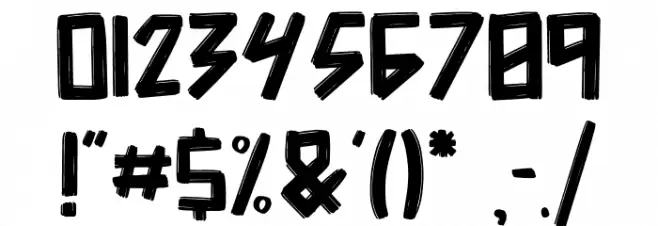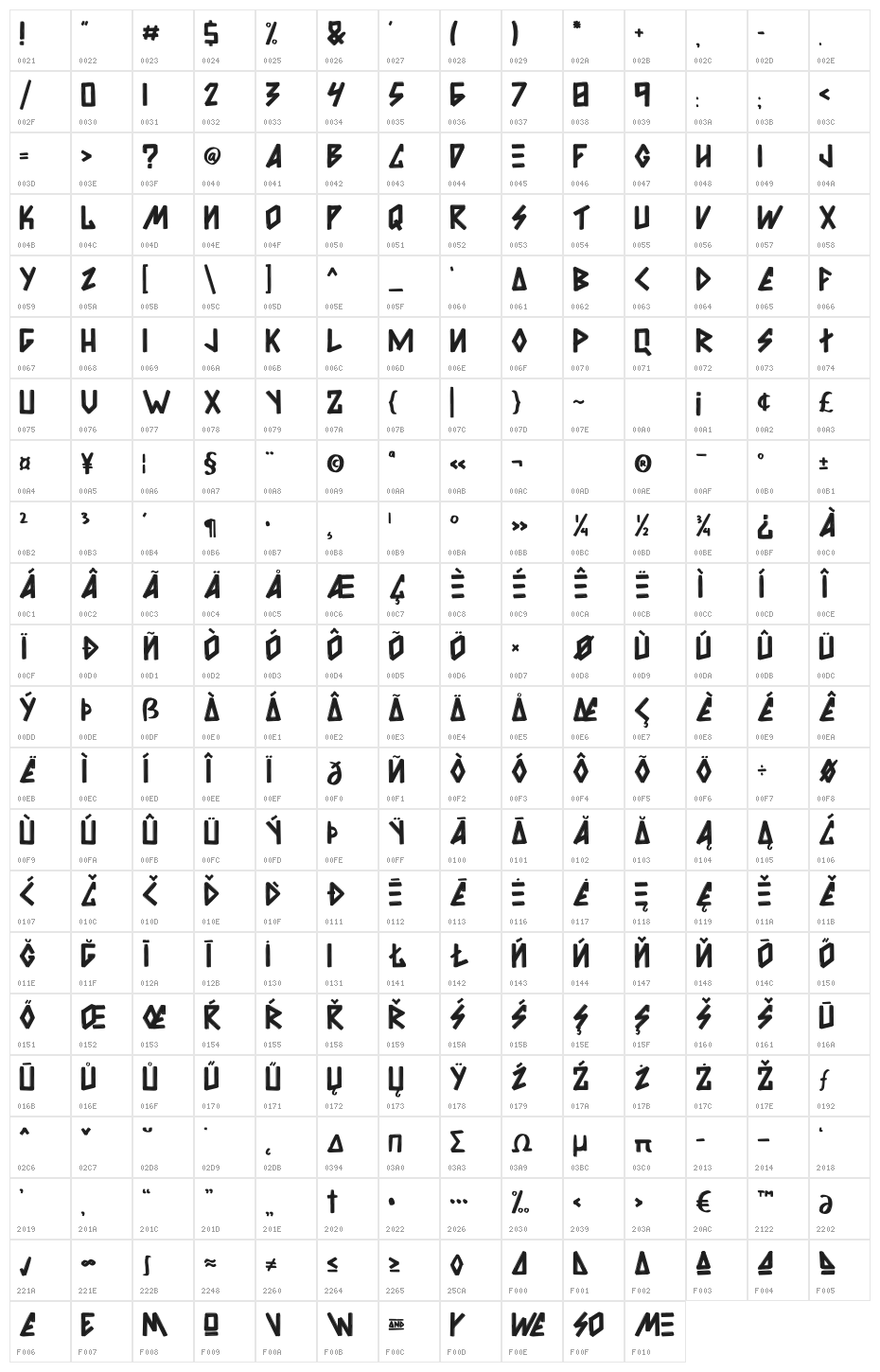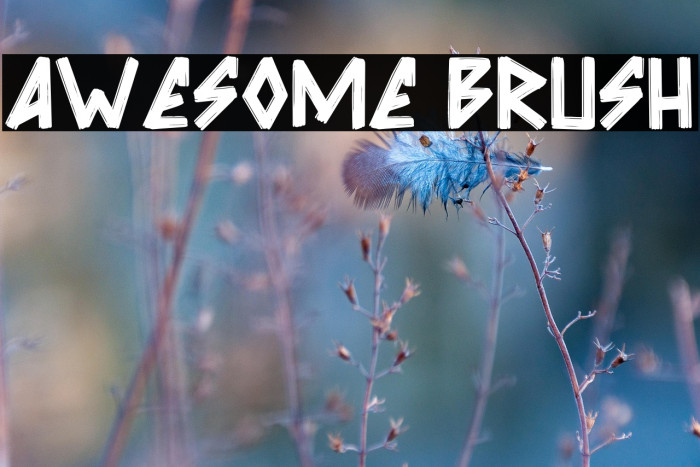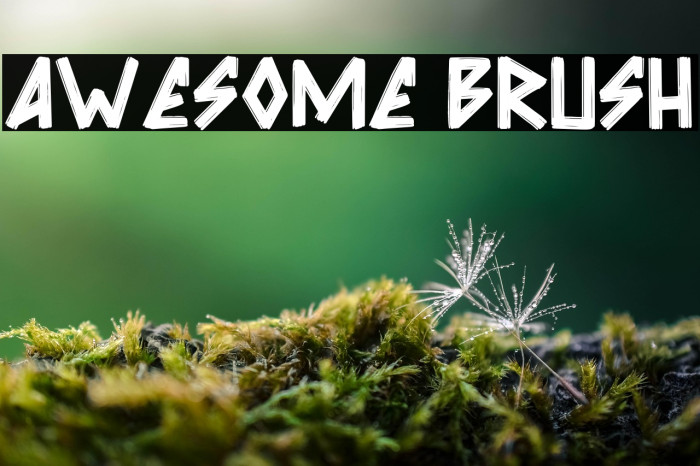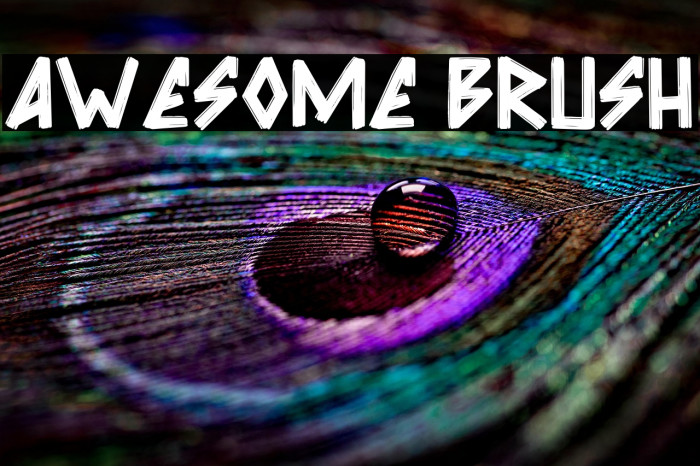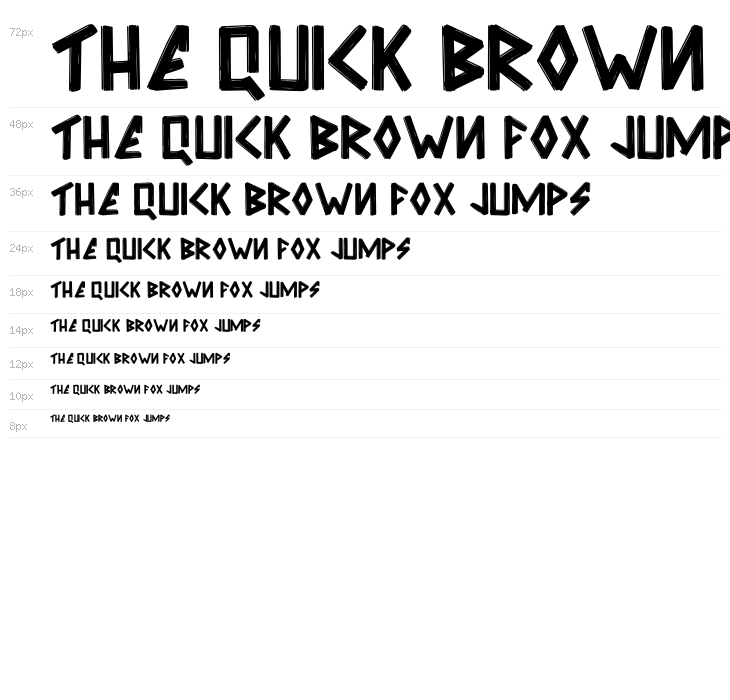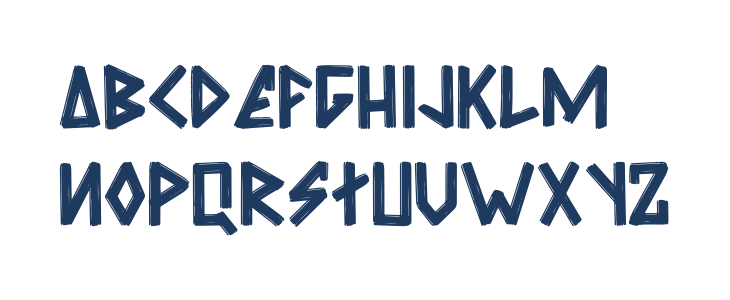
Awesome Brush Font
Awesome Brush Description
This font features a bold and dynamic brush style, characterized by its thick, expressive strokes and angular forms. The letters have a hand-painted appearance, giving them a raw and energetic feel. The uppercase and lowercase characters maintain a consistent style, with sharp edges and a slightly slanted orientation, enhancing the sense of movement. The numbers and special characters follow the same aesthetic, ensuring a cohesive look across all elements. This font is ideal for projects that require a strong visual impact and a modern, artistic touch.
| Proposed Projects | Ideal for posters, branding, album covers, and any design needing a bold, artistic flair. |